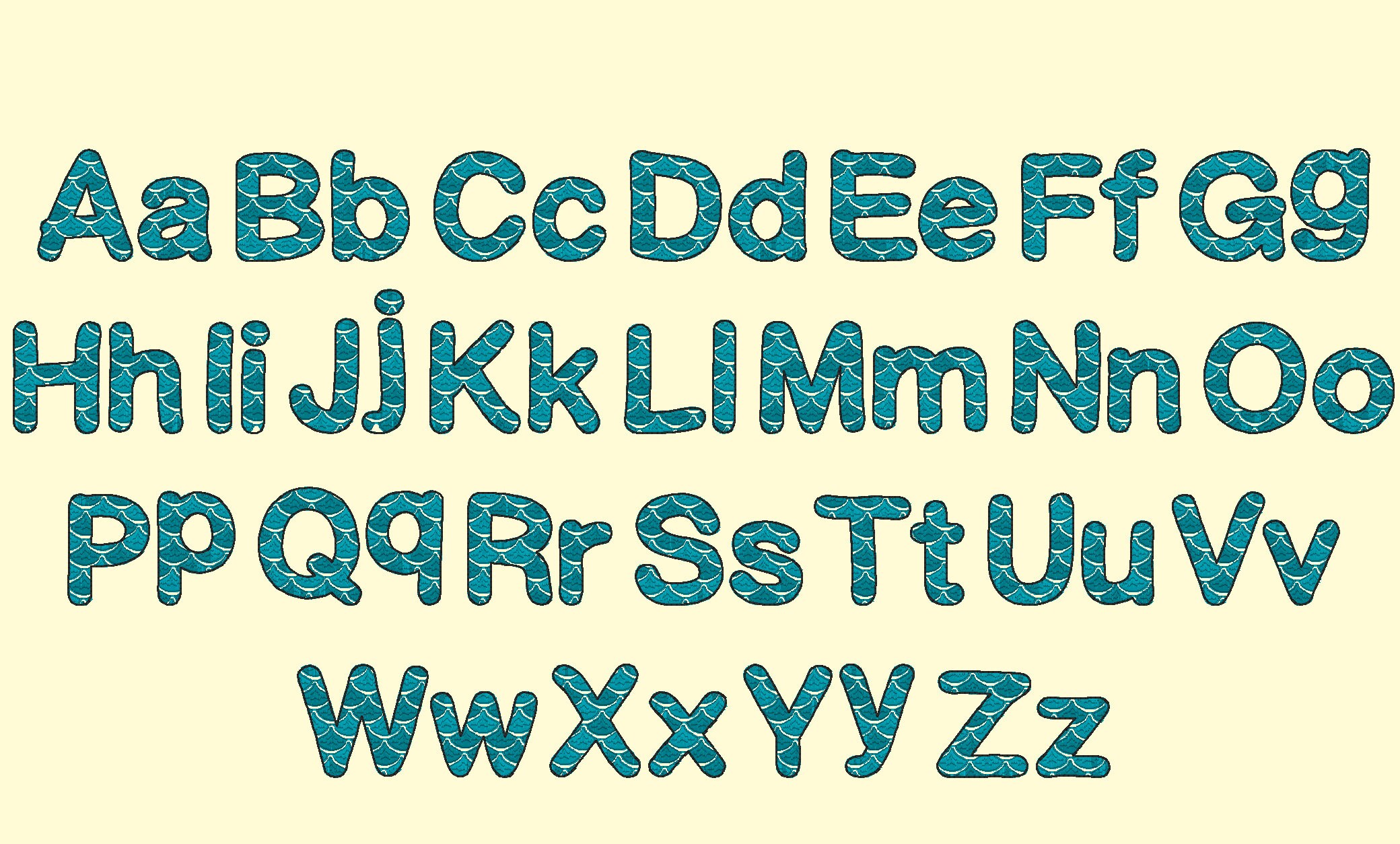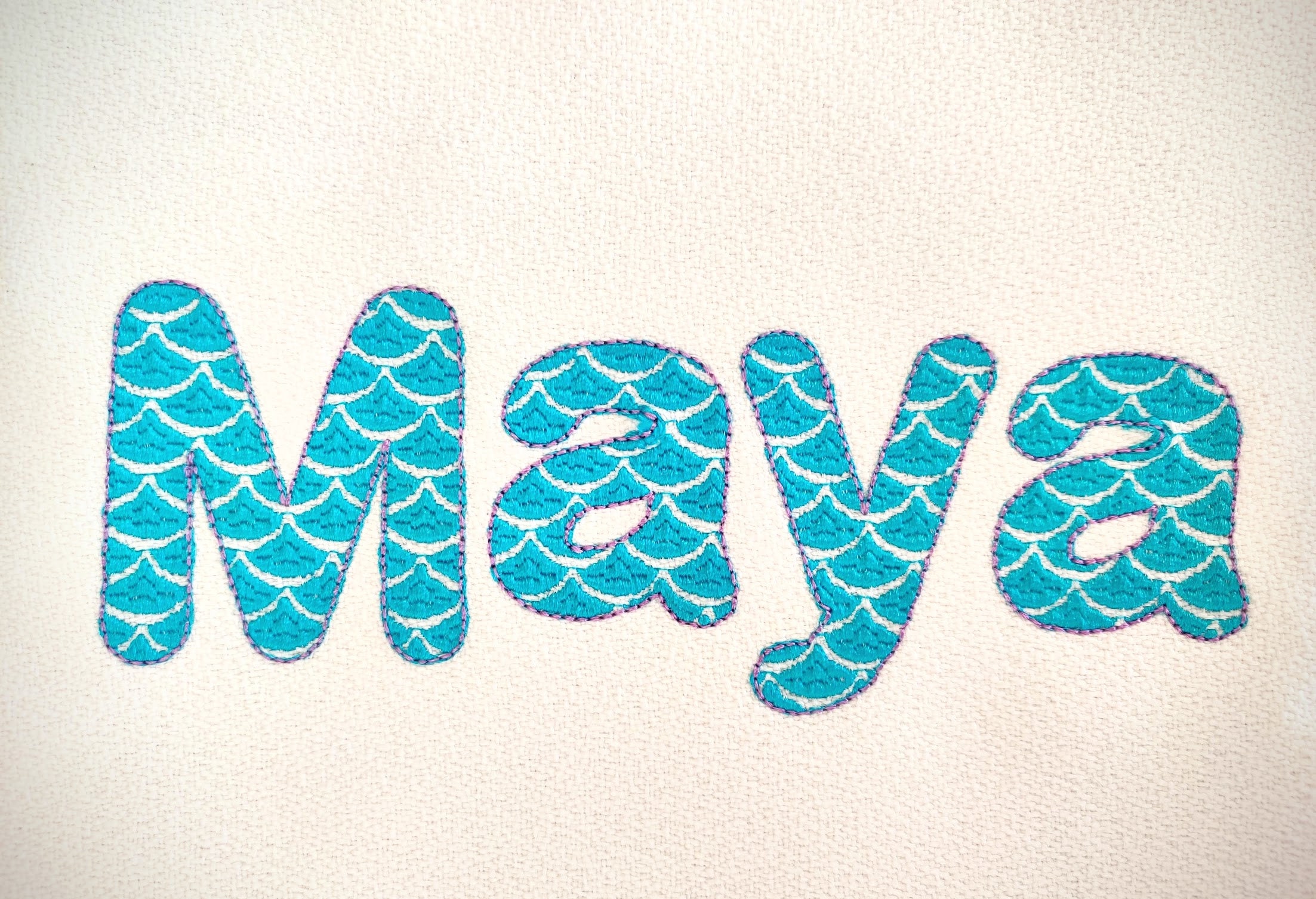
Mermaid scallops are part of the embroidery. They are stitches. This is light stitch font, so your design will be transparent. It looks Stunning!
ich habe die 3cm großen Buchstaben gestickt, leider sind die Stiche viel zu eng und somit wurde der Stoff extrem wellig. Hier wurde leider die Datei nur % reduziert aber nicht angepasst. Schöne Schrift aber sehr unsaubere Verarbeitung , Schade!